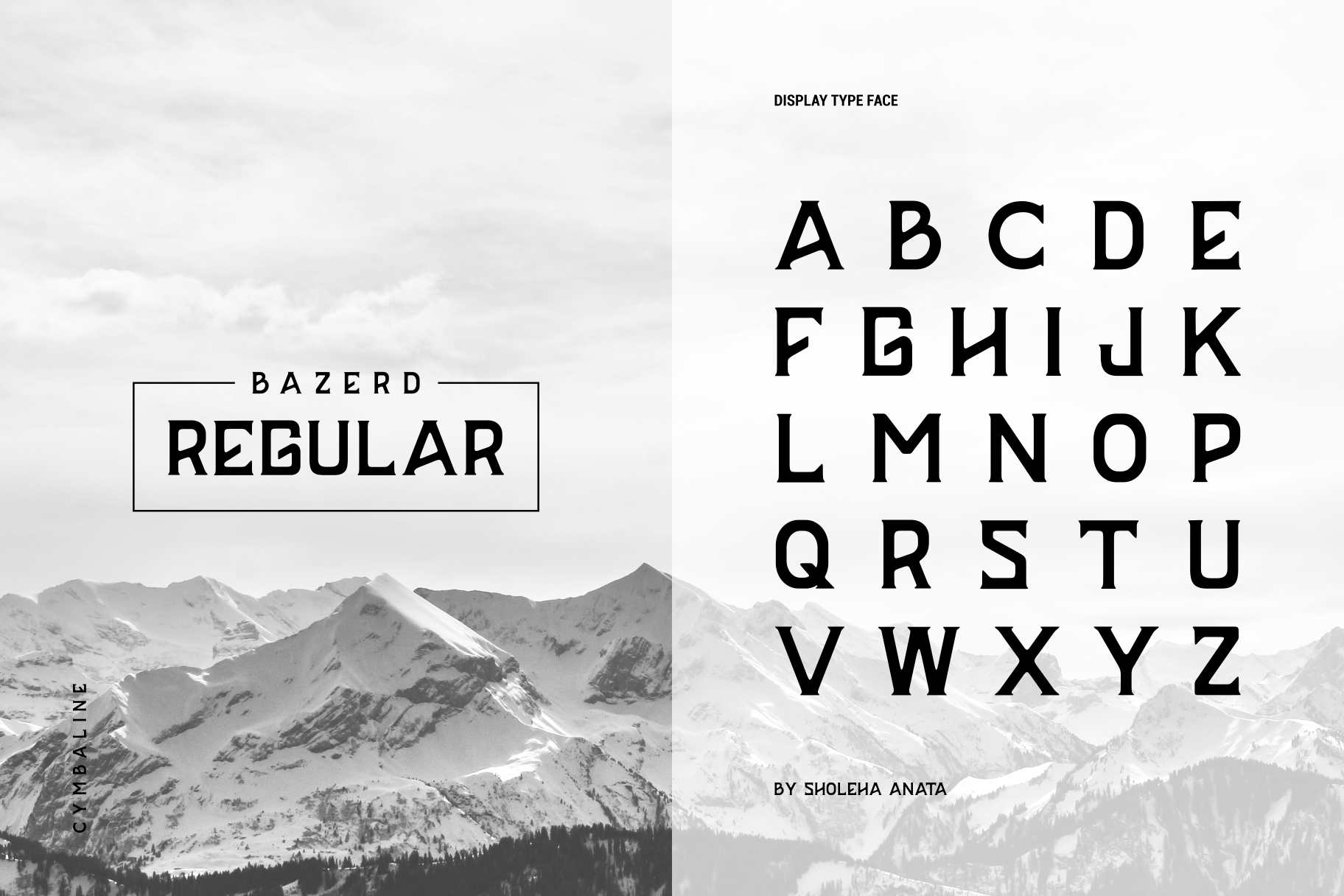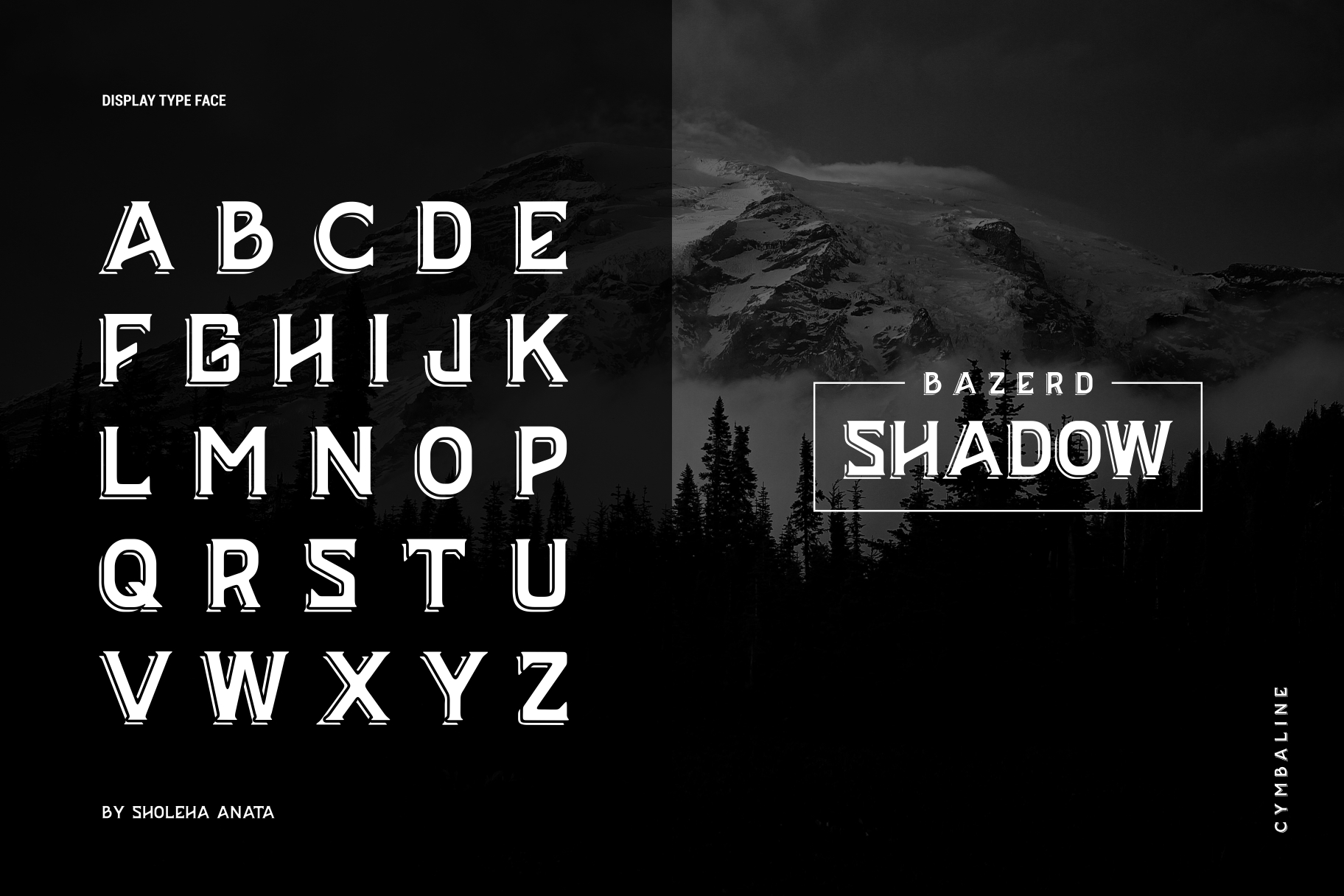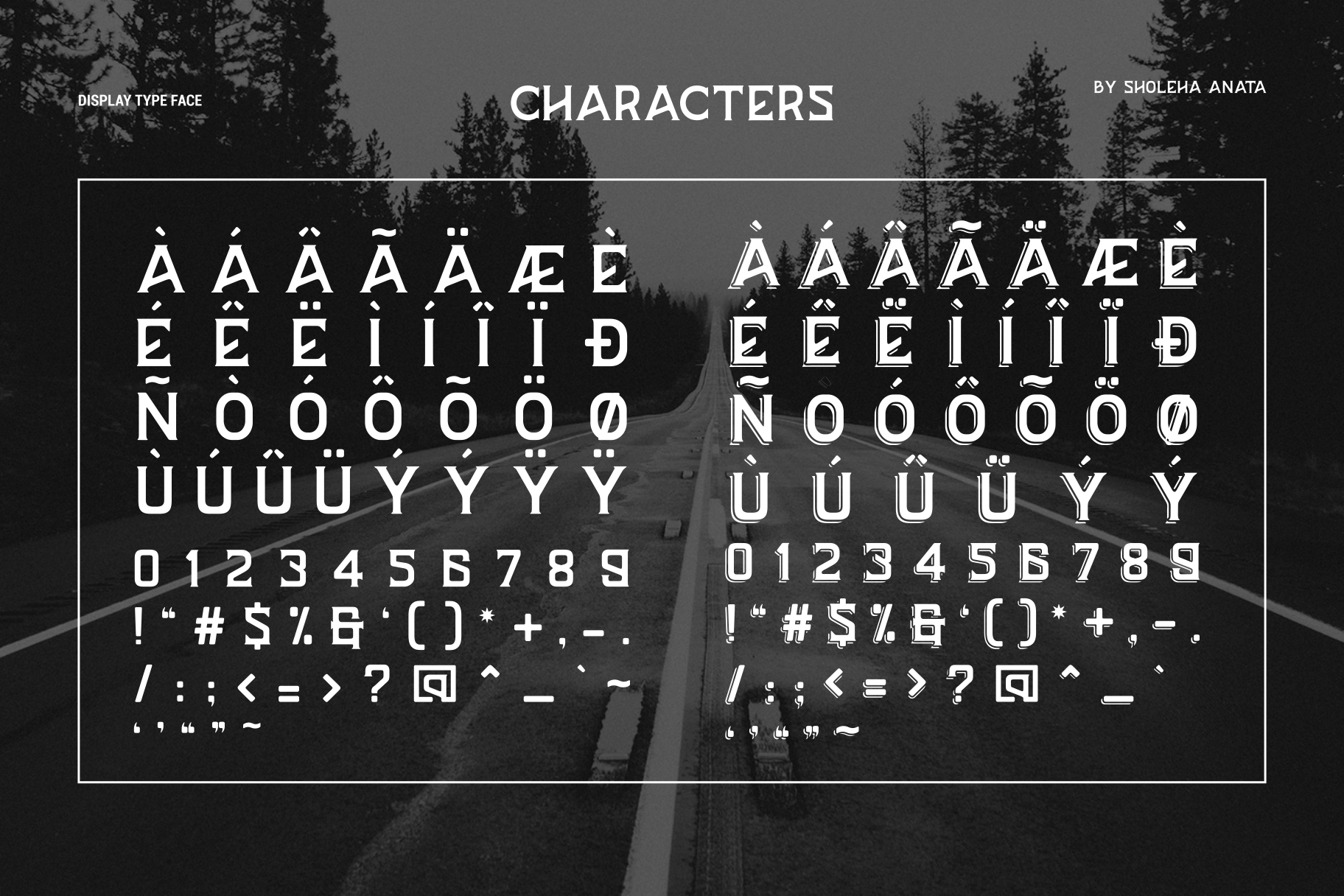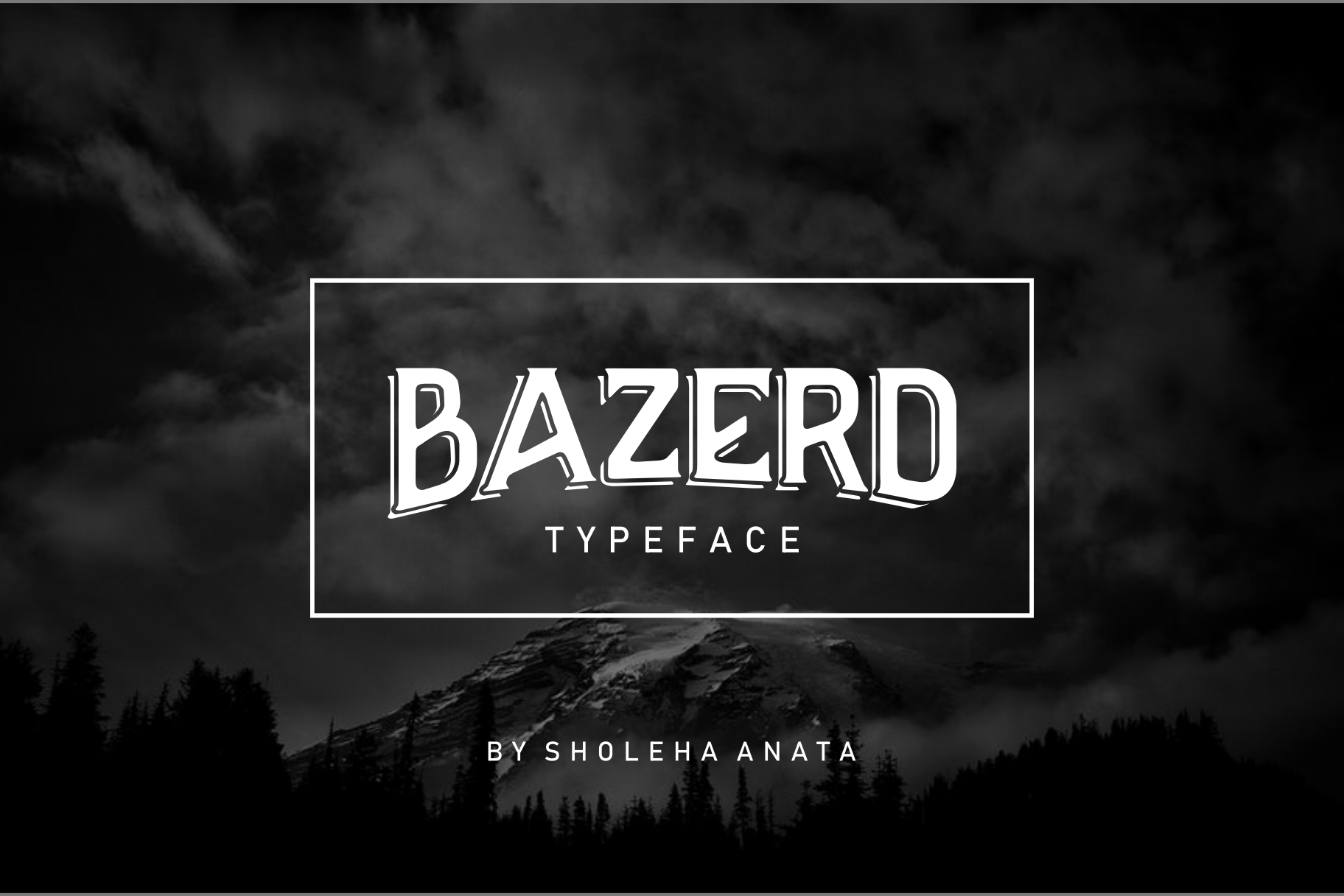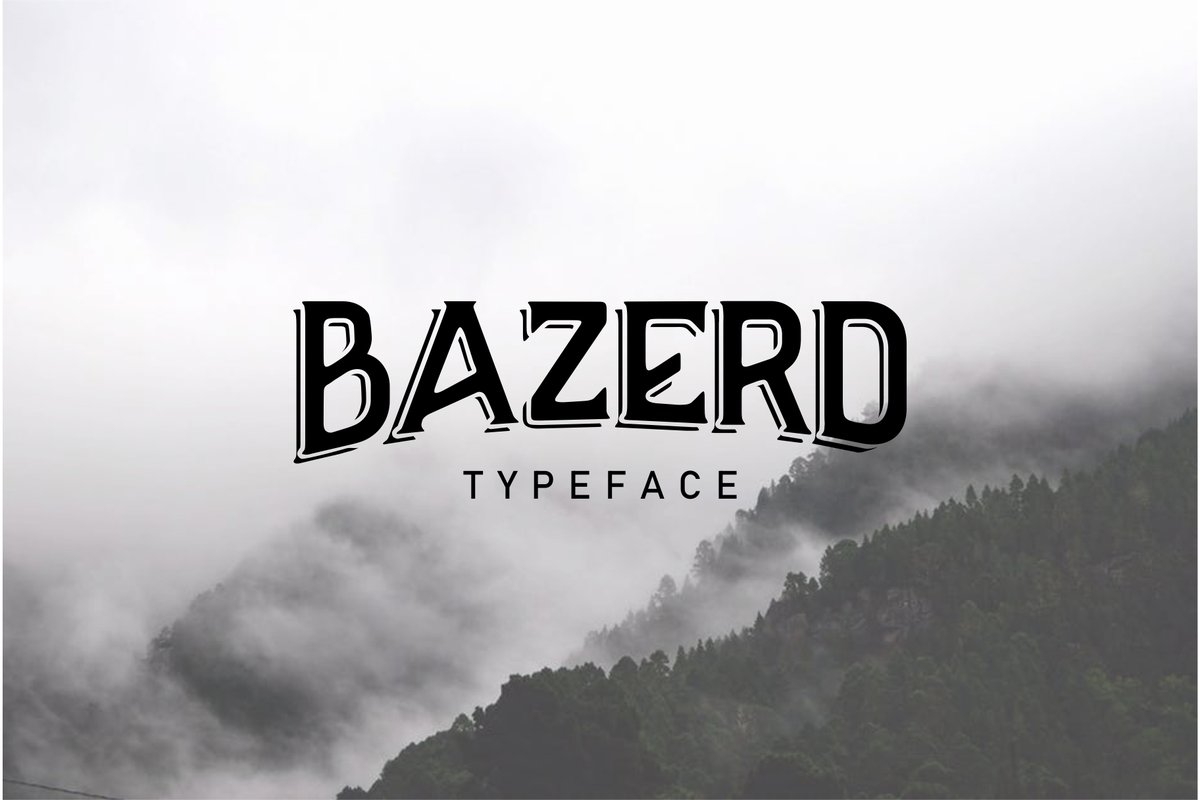
The Perfect Blend of Retro and Modern: Discovering the Bazerd Font
There’s nothing quite like the thrill of the creative spark – that moment when a fresh idea hits you, and you can’t wait to bring it to life. For designers, this feeling is a familiar one, and it’s what drives us to push the boundaries of our craft. Whether you’re working on a retro-inspired project or a cutting-edge modern design, the right font can make all the difference. This is where the Bazerd Font comes in – a gorgeous display font that combines strong, bold vibes with a touch of sophistication.
Designed to evoke a sense of style and cinematic flair, the Bazerd Font is perfect for designers looking to add some extra pizzazz to their projects. Its unique blend of retro and modern elements makes it a versatile choice for a wide range of applications, from graphic design and typography to branding and advertising. With the Bazerd Font, you can give your designs a stylish and eye-catching edge that’s sure to stand out from the crowd.
- Unique Characteristics: The Bazerd Font features a unique blend of modern and vintage elements, with intricate details and flourishes that set it apart from other fonts.
Bazerd Font Review
I recently had the chance to work with the Bazerd font, and I must say it’s a unique addition to any design project. ✨ Here are some of the things that work well:
- Unconventional character shapes add a touch of whimsy to text.
- The bold weights are particularly effective for headings and titles.
- The font’s x-height makes it easy to read, even at small sizes.
- The font may not be the best choice for large blocks of text, as the irregular character shapes can be tiring to look at.
- The font family is relatively small, with only a few weights and styles available.
- ⚠️ I also noticed that the font can be a bit too loud in certain contexts, so use it sparingly.
Overall, I think the Bazerd font is a great choice for designers who want to add some personality to their work. It’s perfect for creative projects, like branding or advertising, where a bit of flair can make a big impact. Just be sure to use it thoughtfully, and you’ll be sure to get the most out of this unique font.
The Bazerd Font is perfect for:
Creating unique and eye-catching headings and titles
Designing custom typography for logos and branding materials
Adding a touch of elegance to presentations and documents
Creating a distinctive visual identity for your business or brand